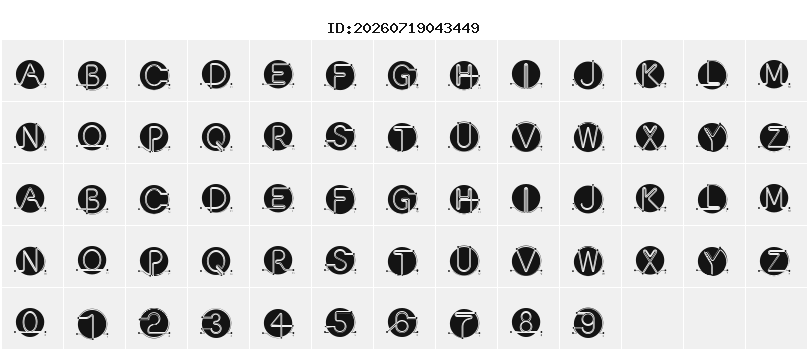
• Font Name: Conect
Conect.ttf is a modern, elegant sans-serif font designed for ultimate readability and visual harmony. Perfect for branding, headlines, web design, and print materials.